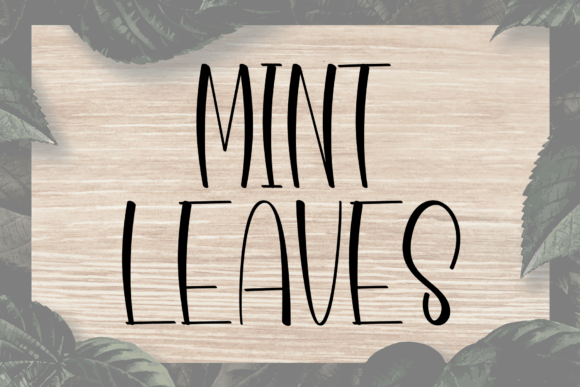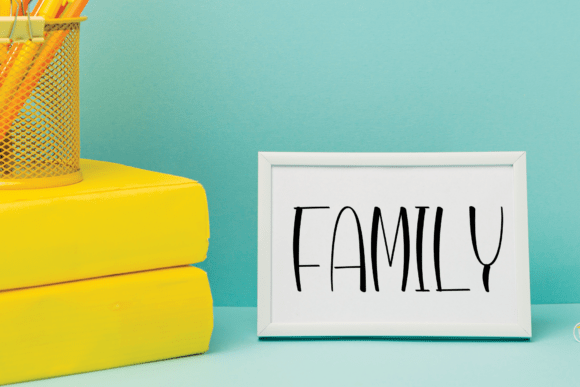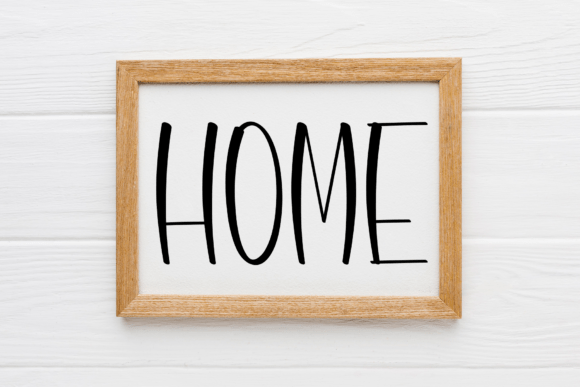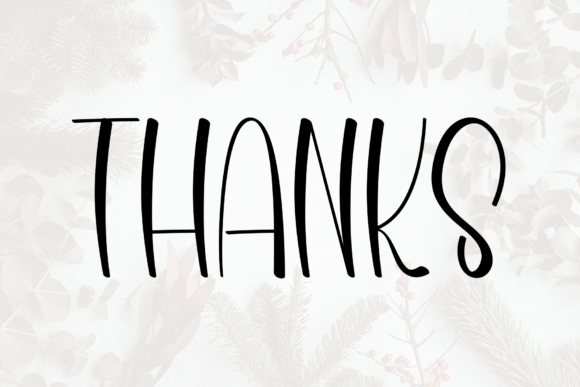
Aesthetics Font: The Perfect Handwritten Font for Your Design Projects
In the world of typography, few fonts manage to capture the essence of warmth and perfection like Aesthetics. This charming handwritten font is filled with a sense of heartfelt perfection, making it an ideal choice for designers and crafters looking to add a personal touch to their projects. With its smooth strokes and organic lines, Aesthetics evokes a relaxed atmosphere that is sure to captivate your audience.
The Characteristics of Aesthetics Font
Aesthetics is a unique font that boasts a range of characteristics that set it apart from other fonts. Its smooth strokes and organic lines give it a natural, effortless feel that is perfect for creating a relaxed and inviting atmosphere. The font’s handwritten style also adds a touch of warmth and personality, making it ideal for designs that require a personal touch.
One of the standout features of Aesthetics is its versatility. The font is perfect for a wide range of design projects, from branding and invitations to social media graphics and more. Whether you’re looking to create a cohesive brand identity or simply want to add a touch of elegance to your designs, Aesthetics is the perfect choice.
Uses of Aesthetics Font
Aesthetics is a highly versatile font that can be used in a variety of design projects. Here are just a few examples of how you can use this beautiful font:
- Branding: Use Aesthetics to create a cohesive brand identity that is warm, inviting, and personal. The font’s smooth strokes and organic lines make it perfect for logos, business cards, and other branding materials.
- Invitations: Add a touch of elegance to your invitations with Aesthetics. The font’s handwritten style makes it perfect for wedding invitations, birthday invitations, and other special occasions.
- Social Media Graphics: Use Aesthetics to create eye-catching social media graphics that are sure to captivate your audience. The font’s relaxed atmosphere makes it perfect for creating graphics that are both fun and engaging.
- Packaging: Aesthetics is also perfect for packaging design. The font’s smooth strokes and organic lines make it ideal for creating labels, product tags, and other packaging materials.
Why Choose Aesthetics Font?
There are many reasons why Aesthetics is the perfect font for your design projects. Here are just a few:
- Unique Style: Aesthetics has a unique style that sets it apart from other fonts. Its smooth strokes and organic lines give it a natural, effortless feel that is perfect for creating a relaxed atmosphere.
- Versatility: Aesthetics is a highly versatile font that can be used in a wide range of design projects. Whether you’re creating branding materials, invitations, or social media graphics, Aesthetics is the perfect choice.
- High-Quality: Aesthetics is a high-quality font that is designed to produce crisp, clear results. Whether you’re printing your designs or displaying them on screen, Aesthetics is the perfect choice.
Tips for Using Aesthetics Font
Here are a few tips for using Aesthetics in your design projects:
- Pair with Other Fonts: Aesthetics can be paired with other fonts to create a unique and visually appealing design. Try pairing it with a bold sans-serif font for a striking contrast.
- Use in Large Sizes: Aesthetics is perfect for large sizes, such as headings and titles. Use it to create eye-catching graphics that are sure to captivate your audience.
- Experiment with Colors: Aesthetics looks great in a range of colors, from bold and bright to soft and pastel. Experiment with different colors to find the perfect look for your design.
In conclusion, Aesthetics is a charming handwritten font that is perfect for designers and crafters looking to add a personal touch to their projects. With its smooth strokes and organic lines, Aesthetics evokes a relaxed atmosphere that is sure to captivate your audience. Whether you’re creating branding materials, invitations, or social media graphics, Aesthetics is the perfect choice.